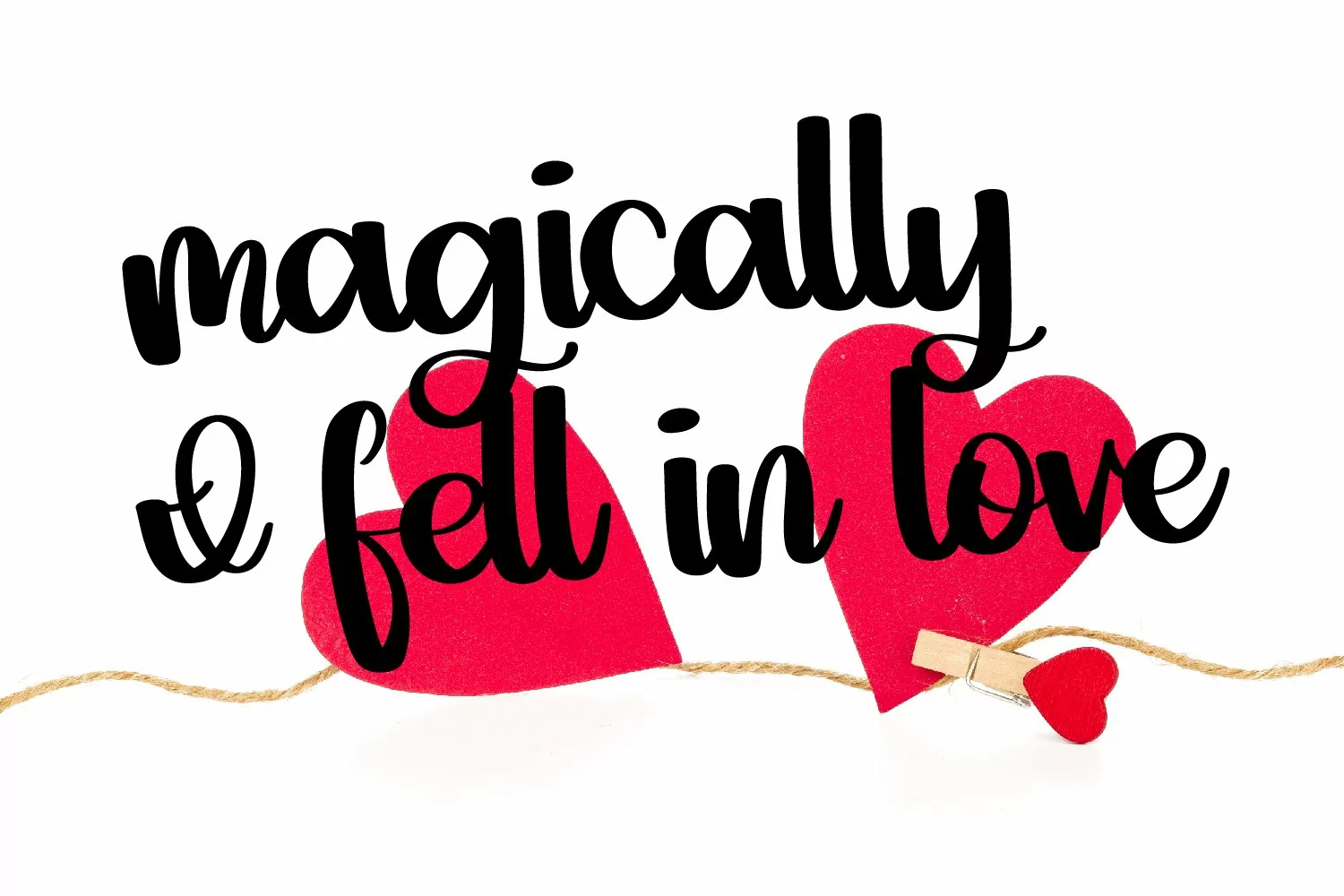
Howling is a thick font with alternative lower case to make the overall look hand-lettered
It also includes 10 flourish hearts you can add to your designs (Look at the alternatives from a-j for those)